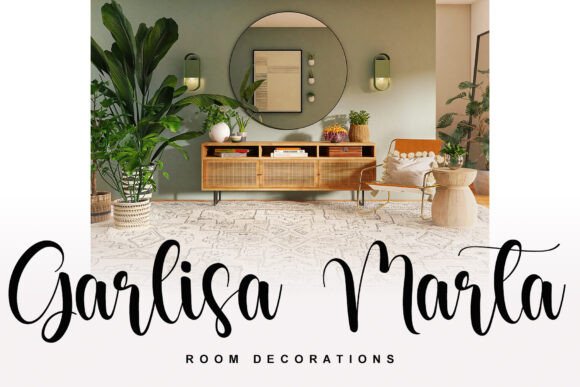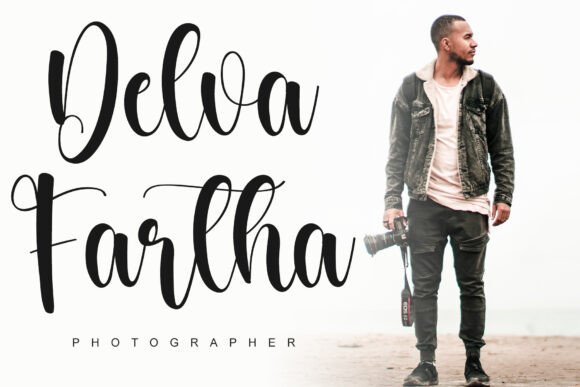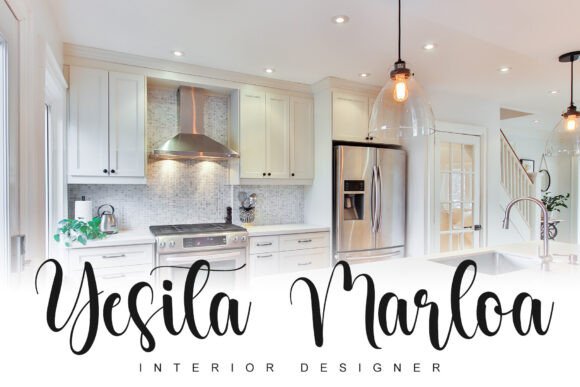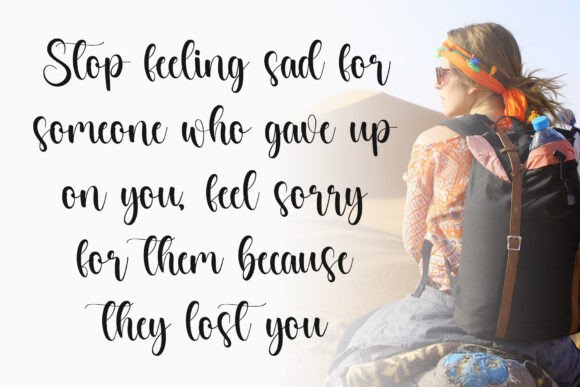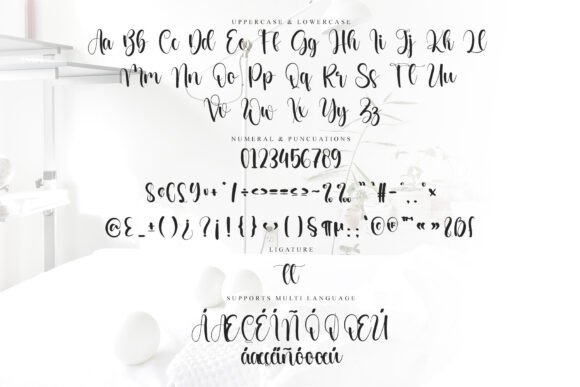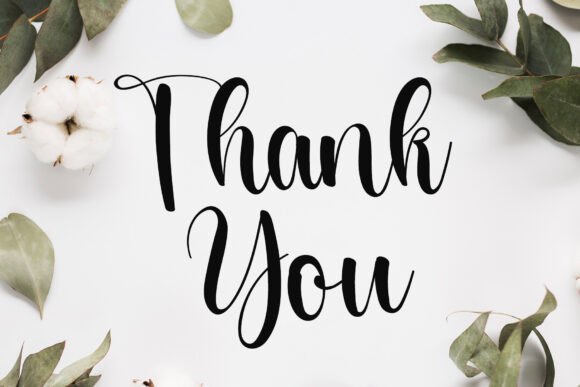
Introduction to Samantha Upright Font
As a designer, there’s nothing quite like the thrill of bringing a creative project to life. You’ve spent hours pouring over sketches, refining your ideas, and perfecting every detail. But sometimes, the perfect font can be the difference between a good design and a great one. That’s where the Samantha Upright Font comes in – a stylish and modern handwritten font that’s sure to add a touch of happiness to your creations.
Whether you’re working on a greeting card, branding a new business, or designing packaging for a product, the Samantha Upright Font is the perfect design resource. With its high-quality glyphs and ligatures, you’ll be able to create beautiful, professional-looking designs with ease. And the best part? This font is PUA encoded, making it easy to access all of its amazing features with a transparent background.
Key Features of Samantha Upright Font
- High-quality digital font suitable for creative projects and design resources.
- Features a transparent background, allowing for easy customization and seamless integration into various design elements.
- Available in a single size, with a resolution of 300 DPI, making it ideal for print and digital applications.
- Characterized by its clean, modern design, the Samantha Upright Font is perfect for a wide range of creative projects, from logos and branding to typography and editorial design.
- Designed to be versatile and easy to use, this font is an excellent addition to any designer’s toolkit, providing a reliable and high-quality design resource.
Honest Review: Samantha Upright Font
As a designer, I’m always on the lookout for high-quality fonts that can elevate my creative projects. I recently stumbled upon the Samantha Upright Font, and I’m excited to share my honest review with you.
- ✨ High-quality design: The Samantha Upright Font is a beautifully crafted font with clean lines and a classic feel.
- ✨ Transparent background: The font has a transparent background, which makes it easy to overlay on different backgrounds.
- ⚠️ Limited language support: The font only supports a limited number of languages, which may be a concern for designers working on international projects.
- ⚠️ Limited style options: While the font is well-designed, it’s relatively straightforward and lacks some of the more creative style options I’ve seen in other fonts.
For the best results, pair the Samantha Upright Font with a high-quality image or background. Experiment with different font sizes and styles to add depth and visual interest to your design. This versatile font is perfect for a variety of creative projects, from logos to presentations.
The Samantha Upright Font is commonly used for logos, social media graphics, presentations, and documents. Its clear and modern design makes it a valuable design resource for any creative project.
Yes, the Samantha Upright Font has a transparent background, making it easy to use in designs with complex backgrounds. The font’s transparent background also allows for seamless integration with other design elements.
What makes the Samantha Upright Font a high-quality design resource?
The Samantha Upright Font is a high-quality design resource due to its clear and legible typography, making it perfect for use in a variety of creative projects. The font’s high-quality design ensures that it will look great in print or digital formats.